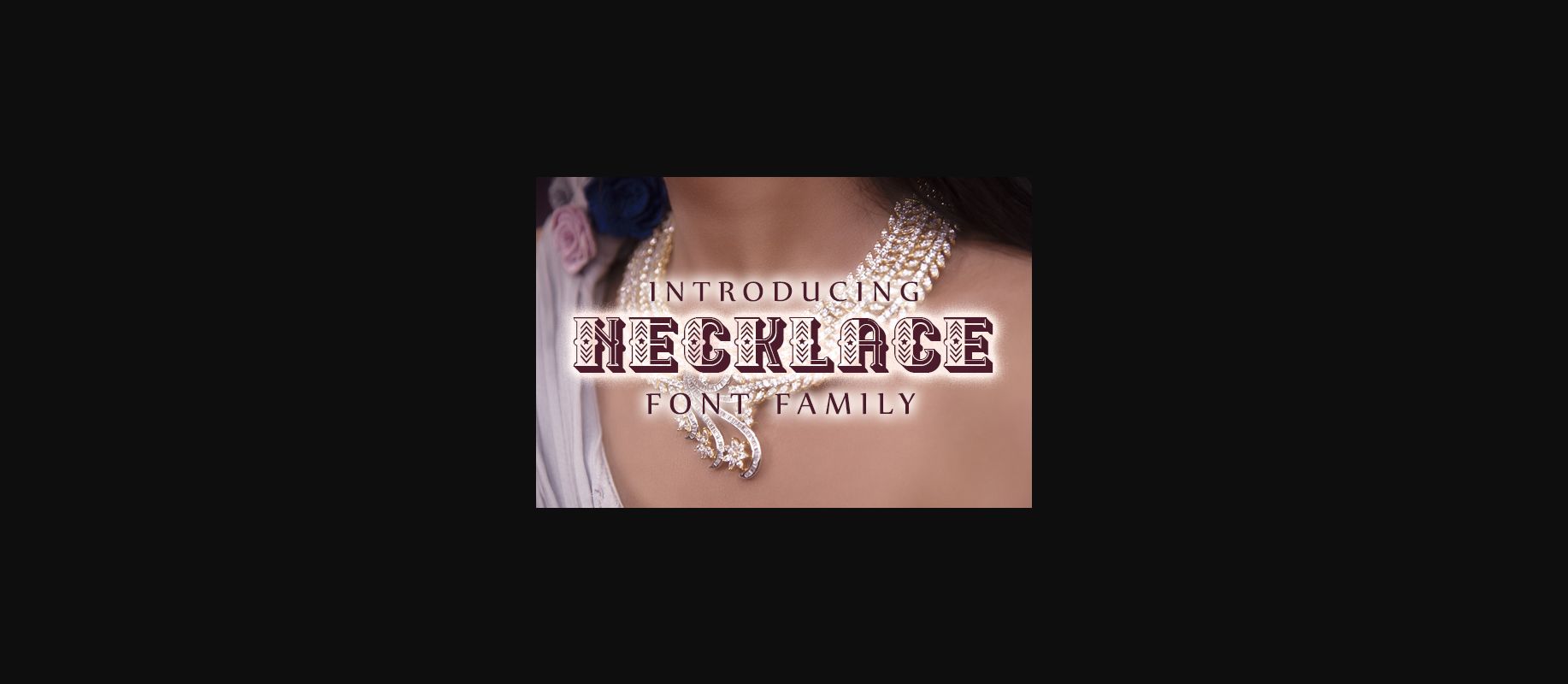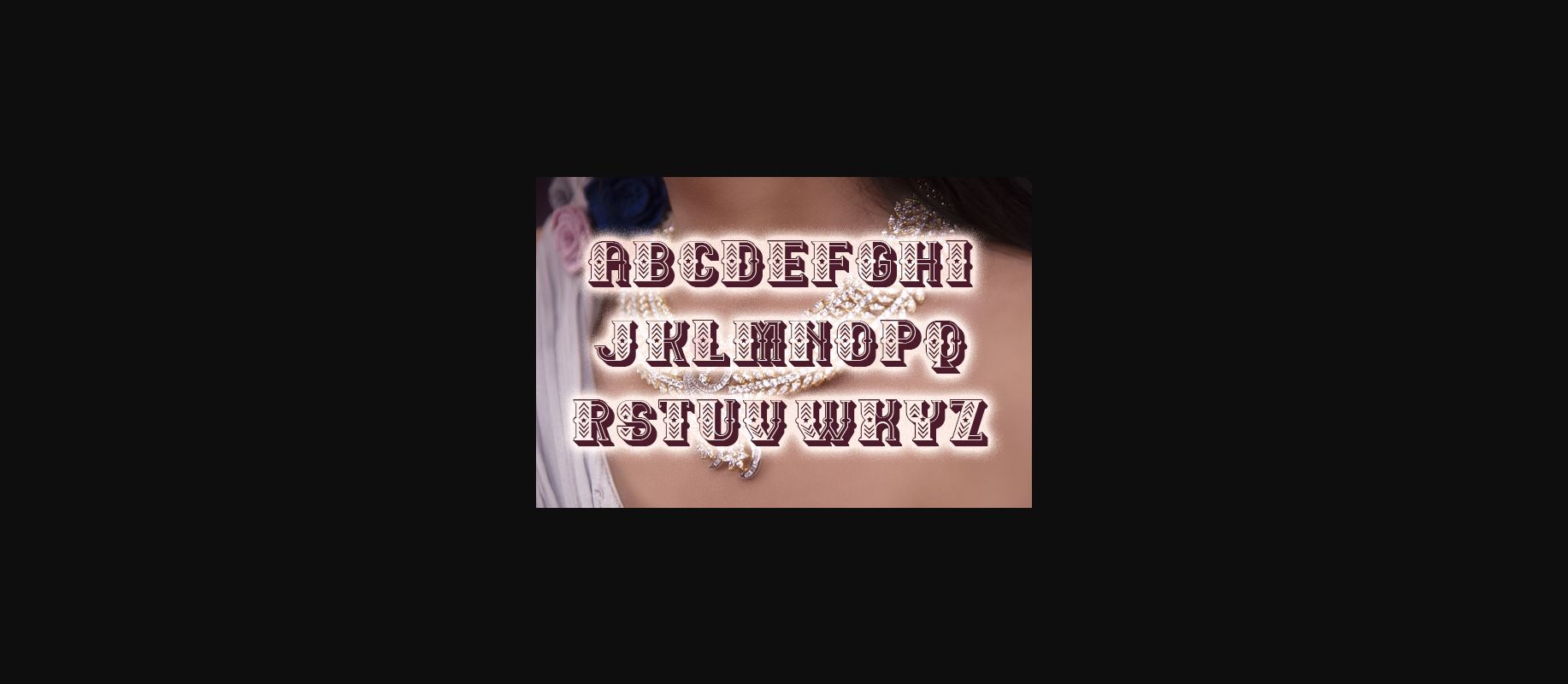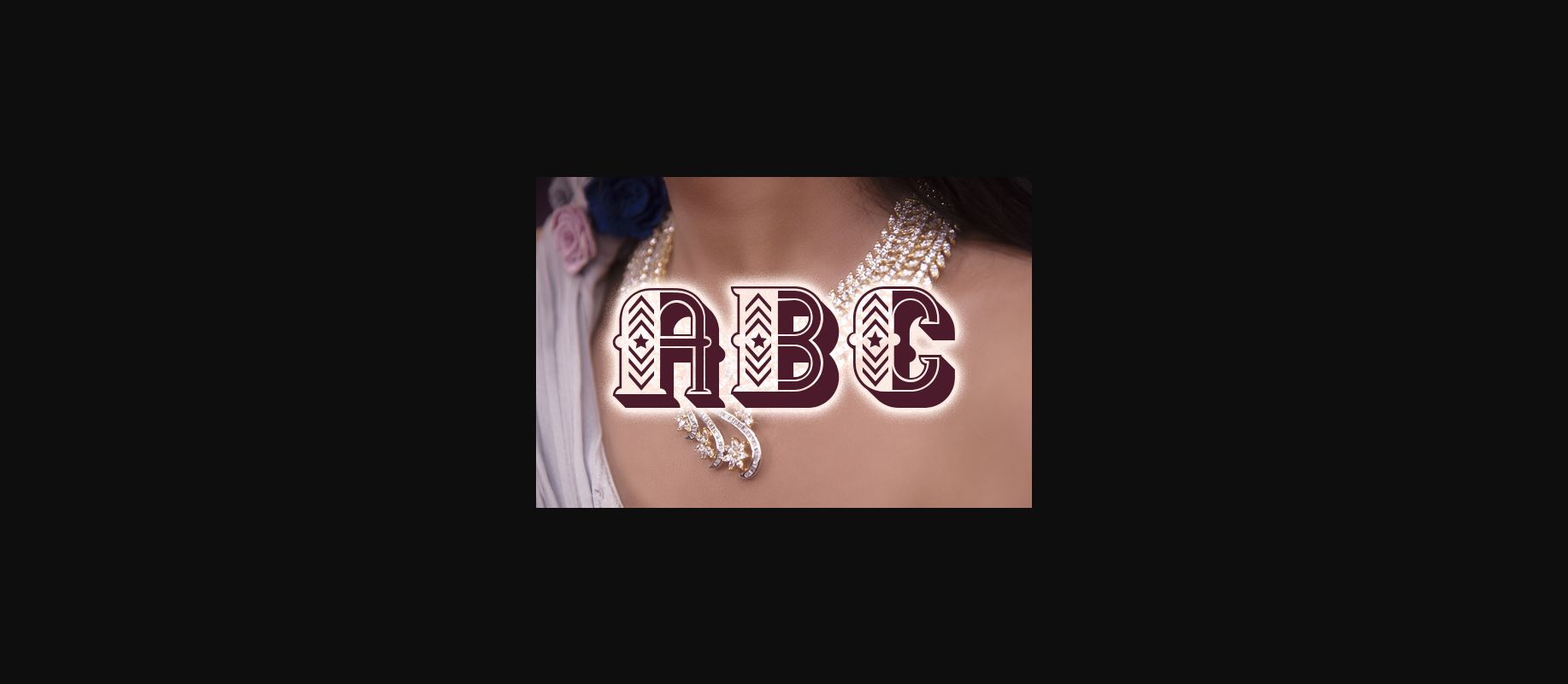
About Necklace Font
Necklace is an elegant decorative font that will look fresh on any design. Add this font to your creative ideas and notice how it will make them stand out!